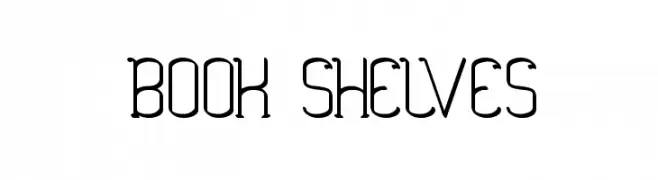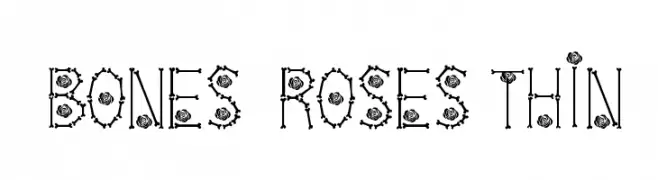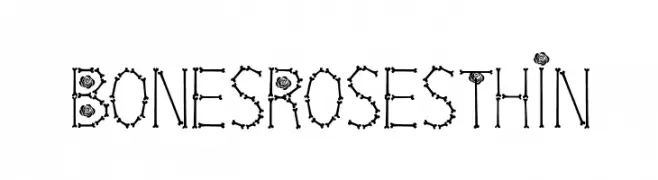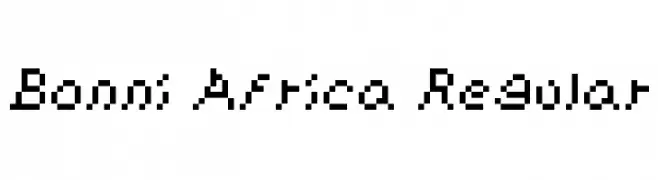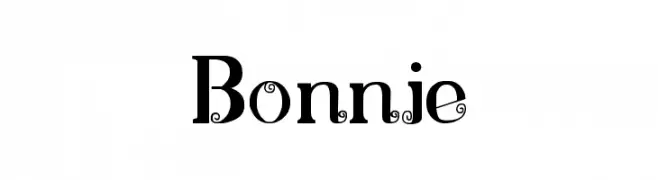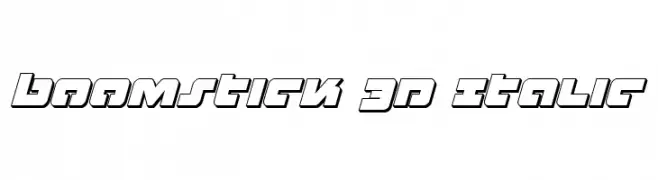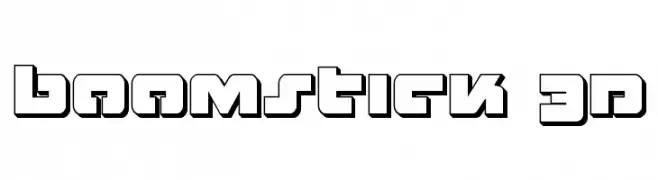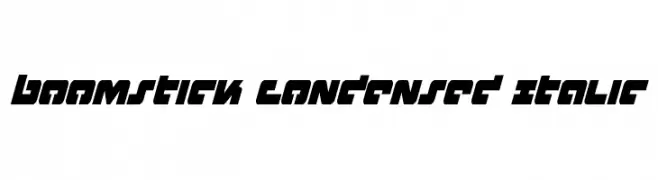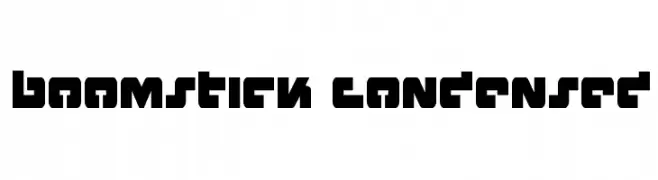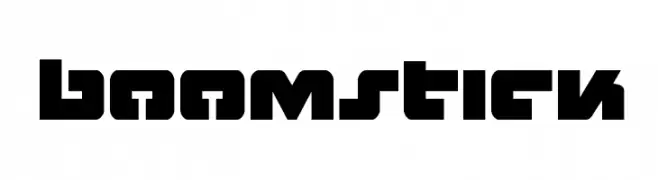
A modern, geometric font with clean lines and rounded edges.
A bold, angular font with a geometric and dynamic style.
A bold, outlined font with a shadow effect for a three-dimensional look.
A playful, hand-drawn font with a whimsical and artistic style.
A modern, geometric font with rounded edges and a bold, compact design.
A modern, geometric font with rounded edges and consistent stroke width.
A rune-inspired, hand-drawn font with a rustic, ancient aesthetic.
A geometric, monospaced font with uniform character width and clean lines.
A classic serif font with elegant, well-defined characters and consistent stroke widths.
A playful, hand-drawn font with a casual and organic style.
A futuristic, geometric font with bold, rounded shapes and consistent stroke width.
A bold, futuristic font with a digital, pixelated edge.
A bold, playful font with a futuristic, cybernetic design.
A futuristic, geometric font with a digital and sci-fi aesthetic.
A bold, distressed font with a rugged, industrial appearance.
A bold, distressed font with a gritty, urban aesthetic.
A futuristic, geometric font with rounded edges and a digital aesthetic.
A decorative, futuristic font with abstract geometric shapes.
A futuristic, geometric font with bold, angular letterforms.
A bold, futuristic font with geometric shapes and sharp angles.
A bold, italicized font with a futuristic, angular design.
A futuristic, geometric font with a condensed and angular design.
A bold, futuristic font with a condensed and geometric style.
A futuristic, bold, and italicized font with a condensed design, ideal for tech and modern projects.
A futuristic, condensed italic font with sharp, angular edges.
A sleek, futuristic italic font with sharp angles and smooth curves.
A futuristic, oblique font with bold, angular characters and a sleek, modern style.
A modern, geometric font with clean lines and a structured appearance.